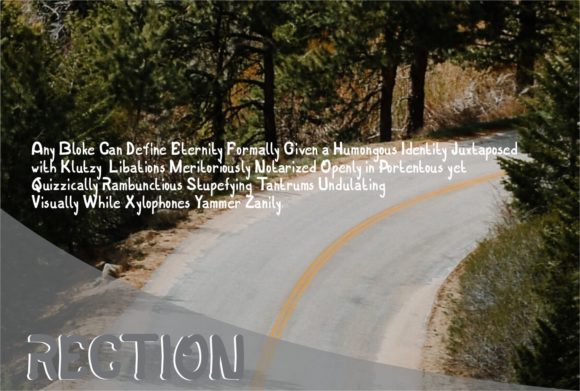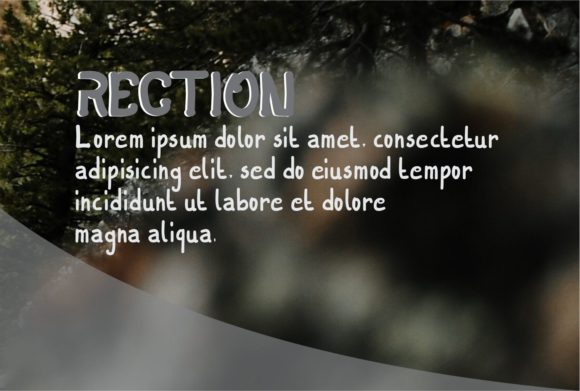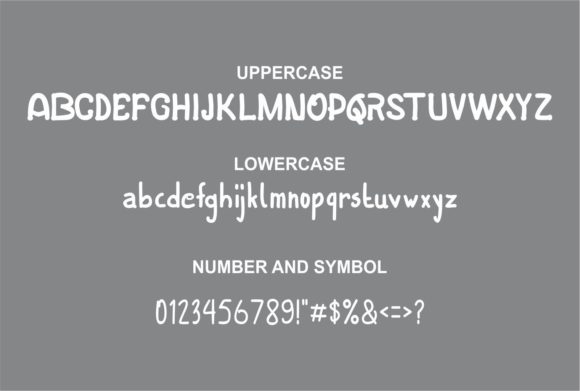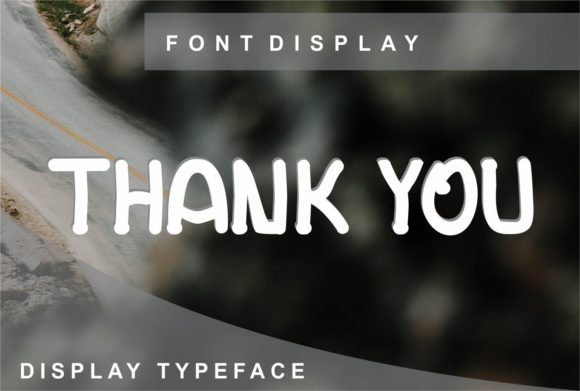
Introduction to Rection Font
Have you ever stared at a blank canvas, waiting for the perfect spark to ignite your next creative project? The blank page can be daunting, but with the right tools, the possibilities are endless. For designers, the search for the perfect font can be a long and arduous one. But what if you stumbled upon a font that could elevate any project, no matter the topic or theme?
Enter the Rection Font, a clean and adaptable display font that’s sure to become a valuable addition to any designer’s library. With its high-quality design and transparent background, this font is the perfect resource for creatives looking to add a touch of sophistication to their work.
Key Features of Rection Font
- High-quality font with a unique, creative design, perfect for artistic projects and designs.
- Features a transparent background, allowing for seamless integration with any design or image.
- Designed to be highly legible, even at small font sizes, making it perfect for body text and headings.
- Comes with a comprehensive character set, including uppercase and lowercase letters, numbers, and punctuation marks.
Honest Review: Rection Font
As a designer, I’ve had the opportunity to experiment with a wide range of fonts, but the Rection Font has truly caught my attention. The high quality of this font is evident in its sleek, modern design that’s perfect for creative projects.
The Rection Font is a fantastic design resource, offering a unique and stylish look that can elevate any project. I particularly love the transparent background, which makes it easy to combine with other design elements.
- ✨ Unique and modern design
- ✨ High quality and crisp text rendering
- ✨ Easy to combine with other design elements
- ⚠️ Limited character set, which may not be ideal for complex text-based projects
- ⚠️ May require some additional styling to achieve the desired look
How to Use Rection Font
The Rection Font is a high-quality design resource ideal for creative projects that require a unique touch. Its transparent background makes it easy to integrate into various designs.
Tips for Getting the Most Out of Rection Font
To get the most out of the Rection Font, experiment with different font sizes, colors, and styles to create a unique design. You can also combine the font with other design elements to create a visually appealing design.
Common Use Cases for Rection Font
The Rection Font is ideal for use in various creative projects, including graphic design, branding, and digital art. Its unique design and transparent background make it a versatile design resource that can be used in a variety of applications.